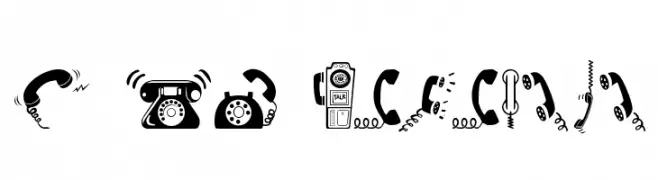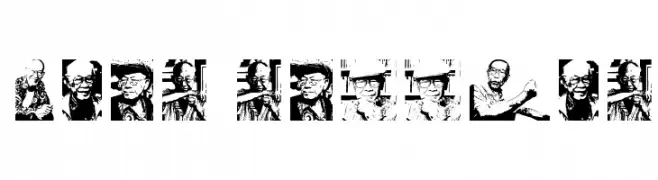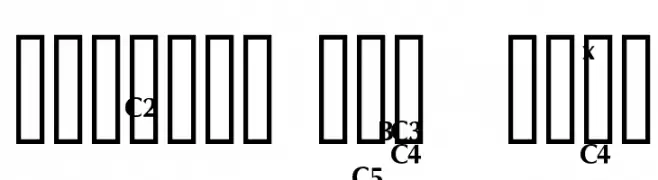
A display font using photographic portraits to form each character.
A pictorial display font featuring various telephone and communication icons.
Not a valid font; this is a fingering chart for woodwind instruments.